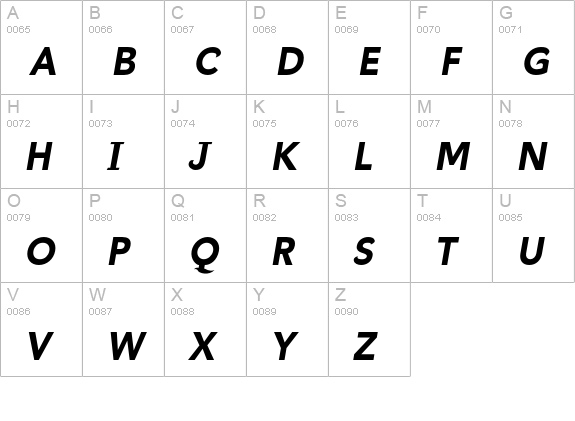
BawdyBoldItalic Font Details
BawdyBoldItalic font is a playful and expressive typeface that exudes a sense of fun and mischief. Its bold and italicized characters make a statement on any design project, adding a touch of flair and personality. Perfect for adding a bit of whimsy to posters, invitations, logos, and more, this font is sure to catch the eye and leave a lasting impression. And the best part? BawdyBoldItalic font is available for free download at FontsMarket.com! Simply head to the website to grab this unique and eye-catching font for all your creative projects. Don't miss out on the opportunity to add a touch of boldness and playfulness to your designs with BawdyBoldItalic font - download it now and let your creativity shine!